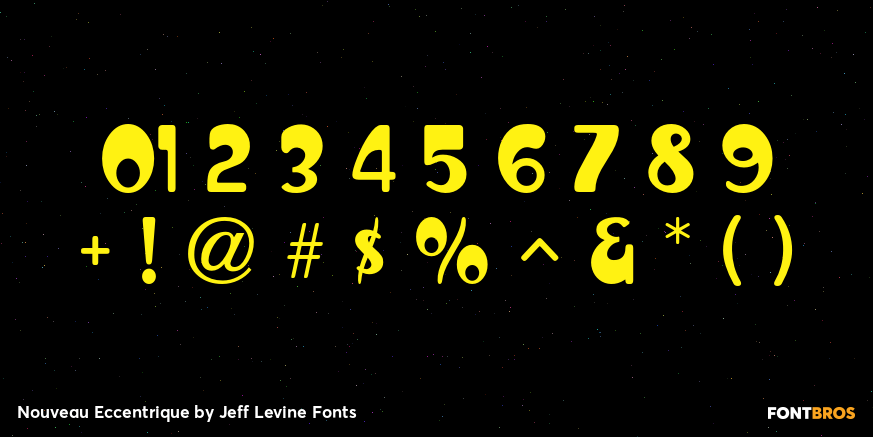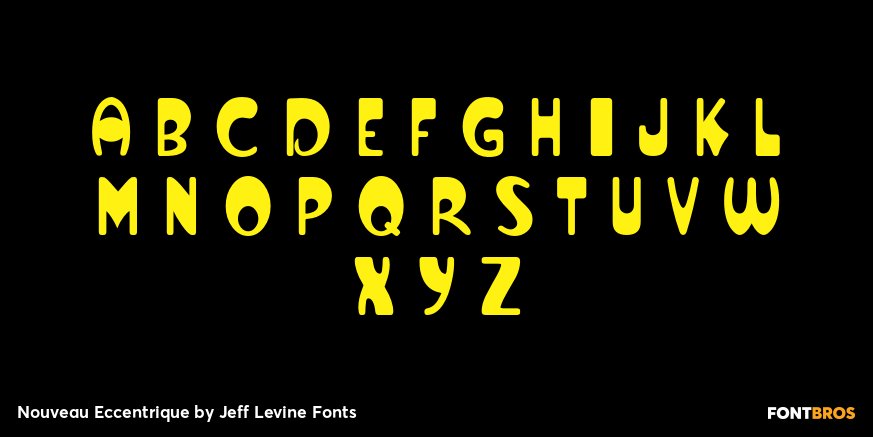
Nouveau Eccentrique
Nouveau Eccentrique JNL is a novelty Art Nouveau lettering style found on some 1920s sheet music cheerfully entitled "I'm Glad I Can Make You Cry".